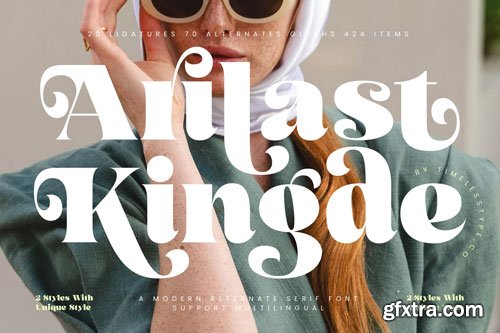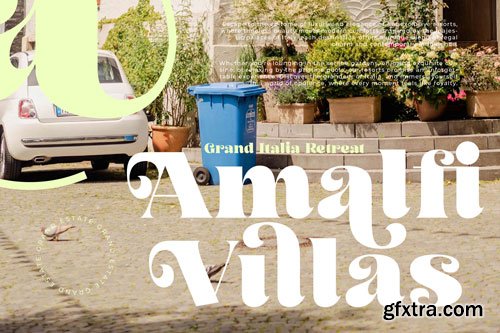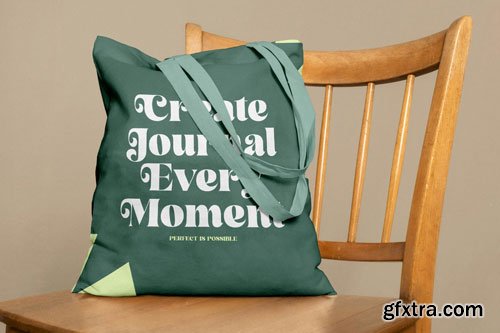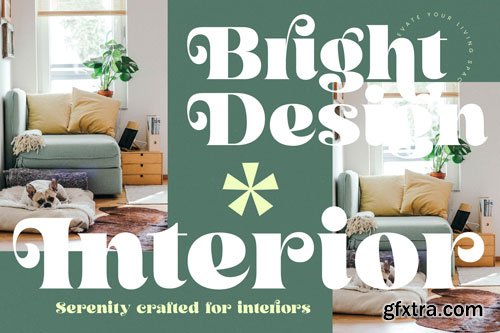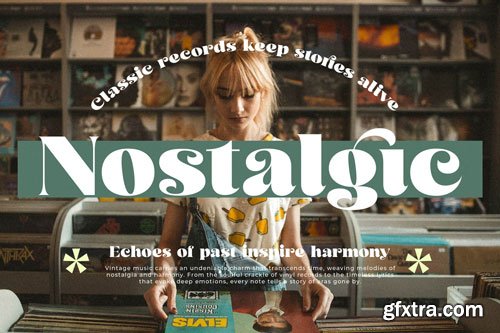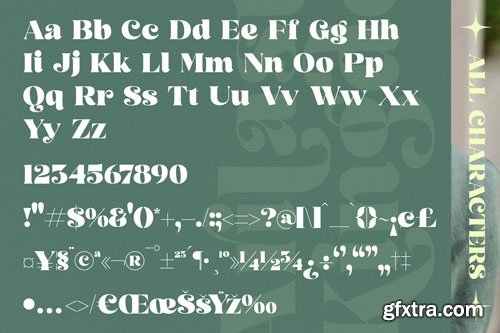
Arilast Kingde - Modern Alternate Serif Font , from Timelesstype, Suitable for any projects such as: logos, branding projects, homeware designs, product packaging, mugs, quotes, posters, shopping bags, t-shirts, book covers, name card, invitation cards, greeting cards, label, photography, watermark, special events, and all your other luxury and beautiful projects that need a Luxury Serif taste.